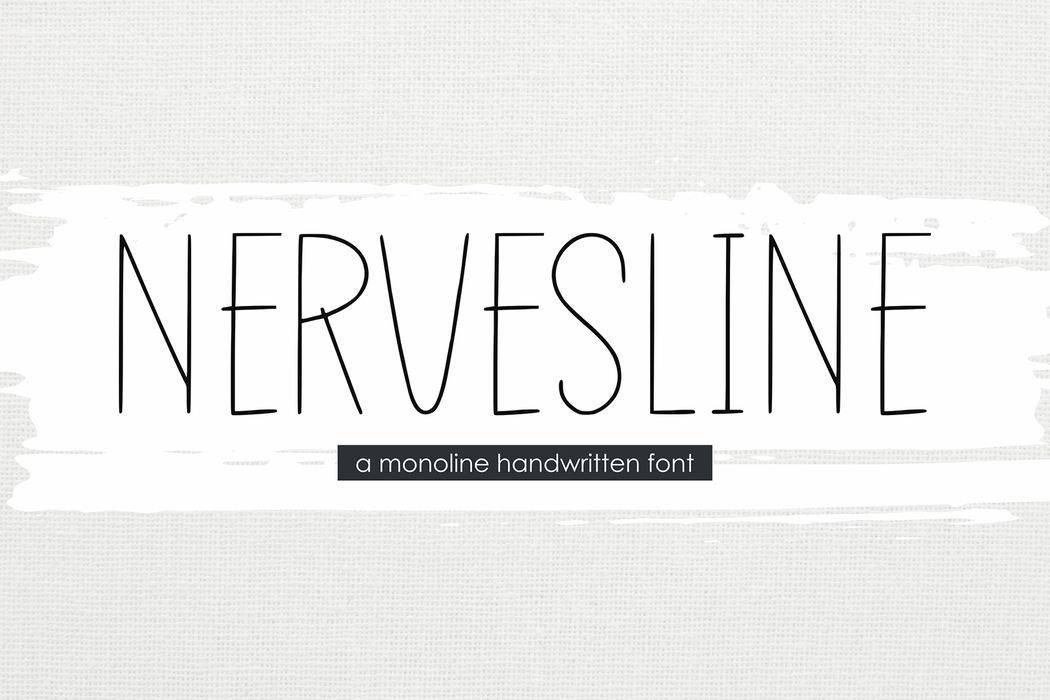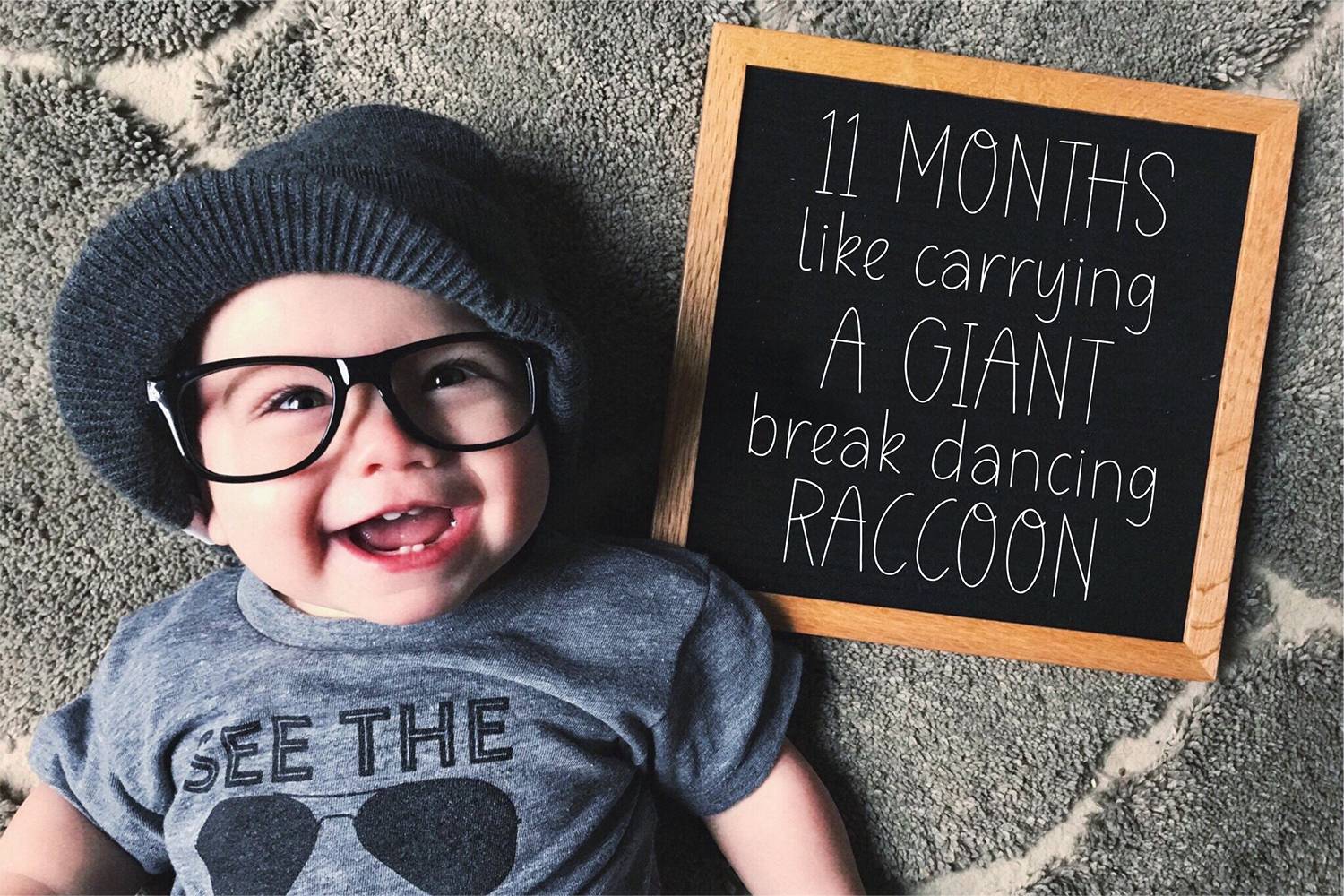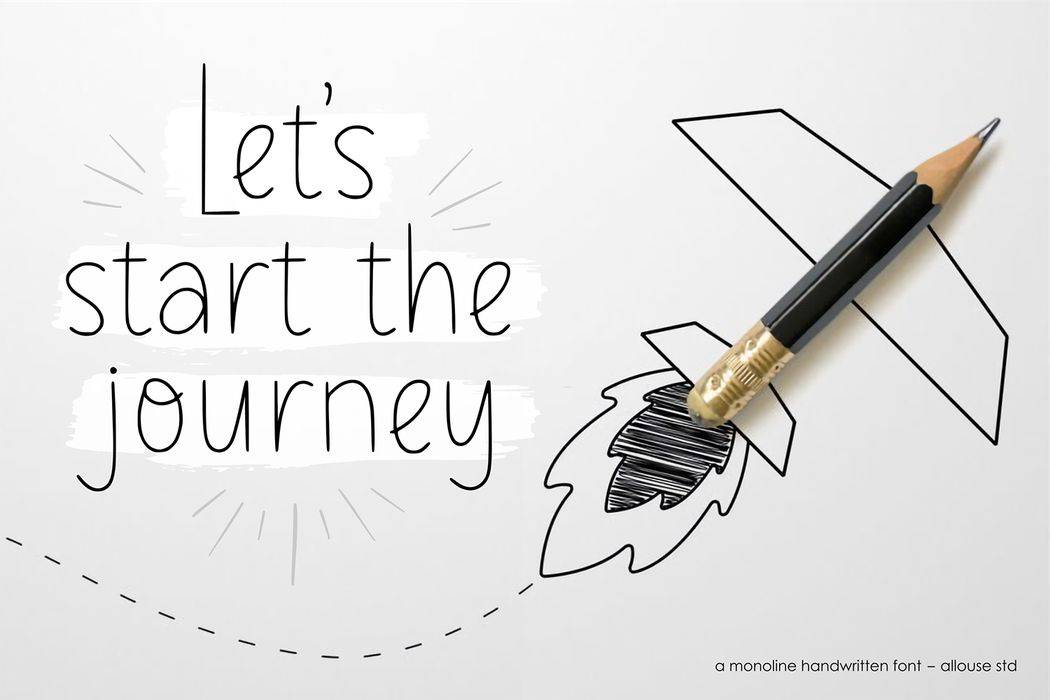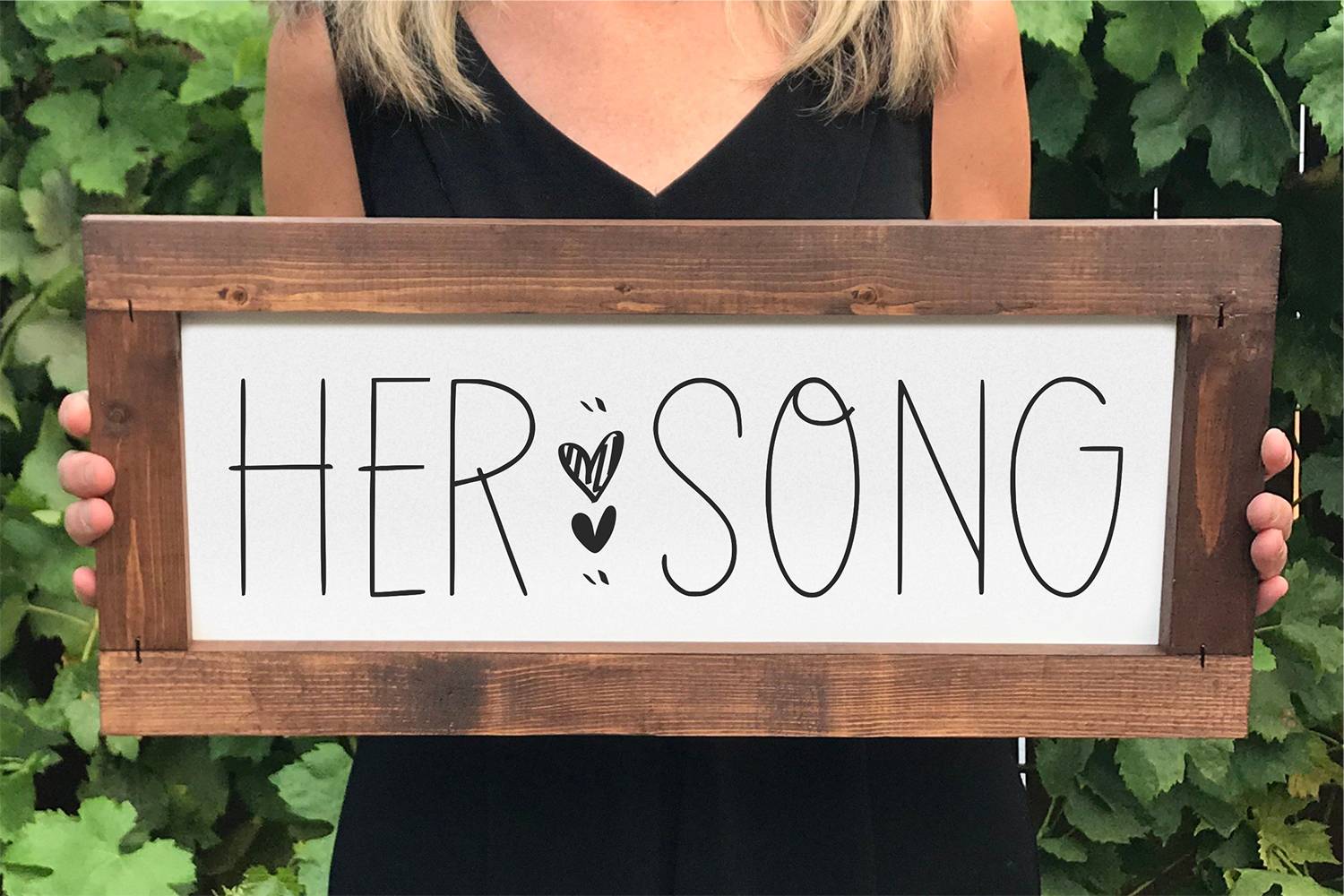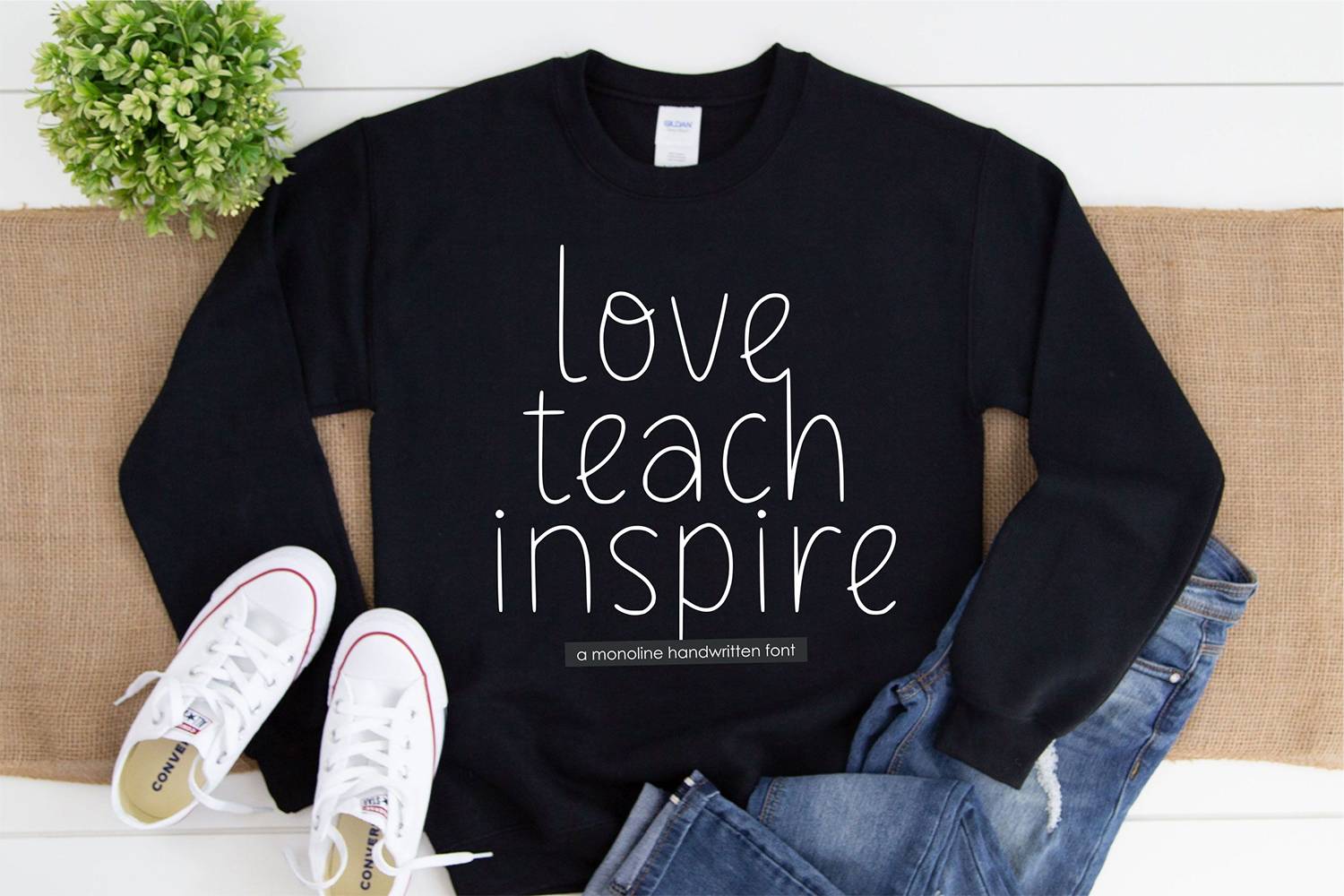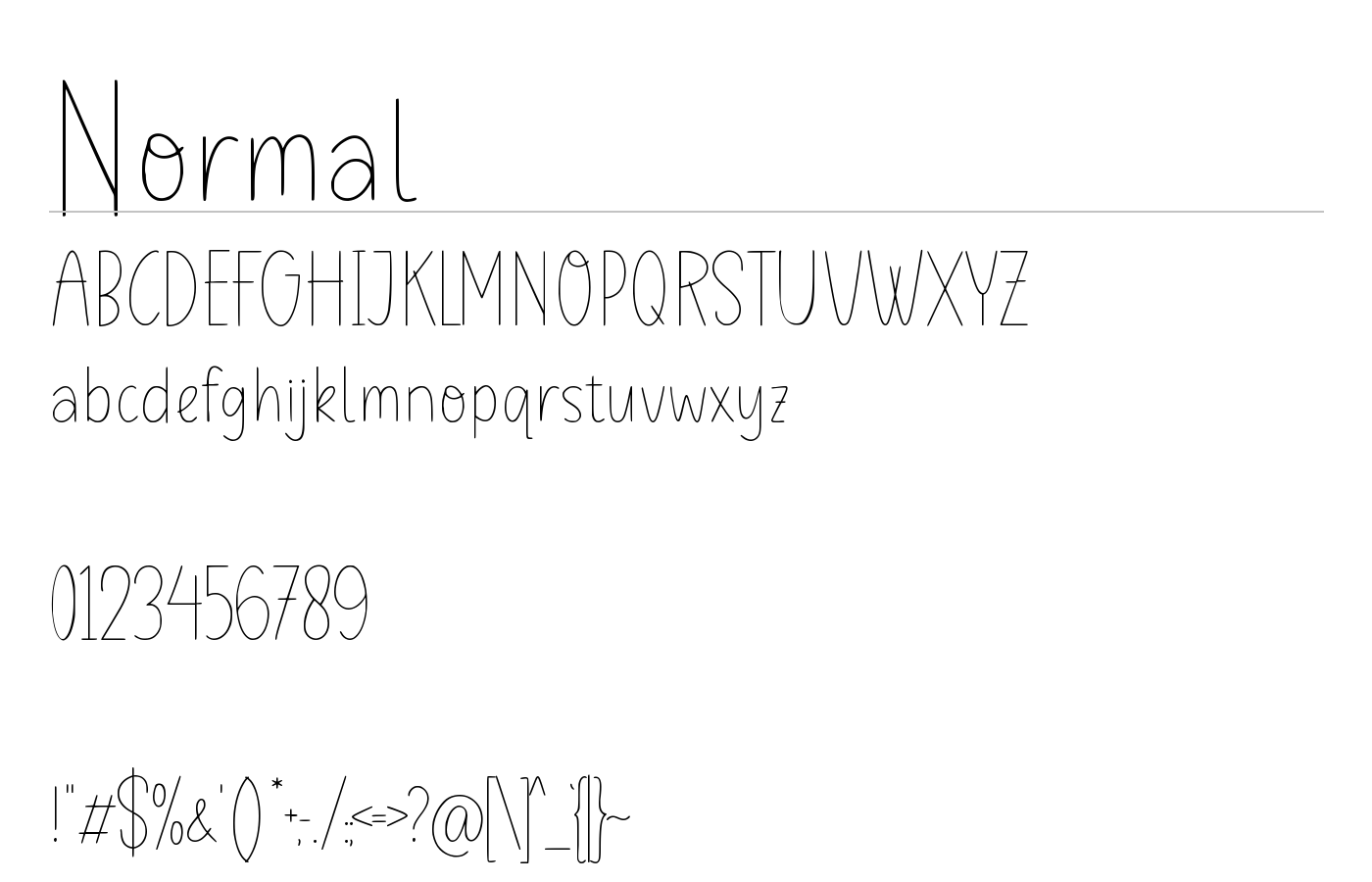
Nervesline is a slender, whimsical sans serif font characterized by its tall, narrow letterforms and delicate, hand-drawn appearance. Its light weight and playful curves make it ideal for designs that want to convey a quirky, creative, or informal vibe. This font works well for artistic branding, casual headlines, and any project seeking a unique, approachable touch.
Nervesline Font
About Nervesline Font